Balloon fonts add charm, playfulness, and whimsy to your design projects. These decorative fonts bring a unique personality to your creations. They are perfect for various applications, including greeting cards, party invitations, and more.
Balloon fonts can elevate your text if you’re working on a commercial project, a personal celebration, or a creative endeavor. They make your message stand out with flair and elegance. Here’s everything you need to know about incorporating balloon font styles into your next design.
What Are Balloon Fonts?
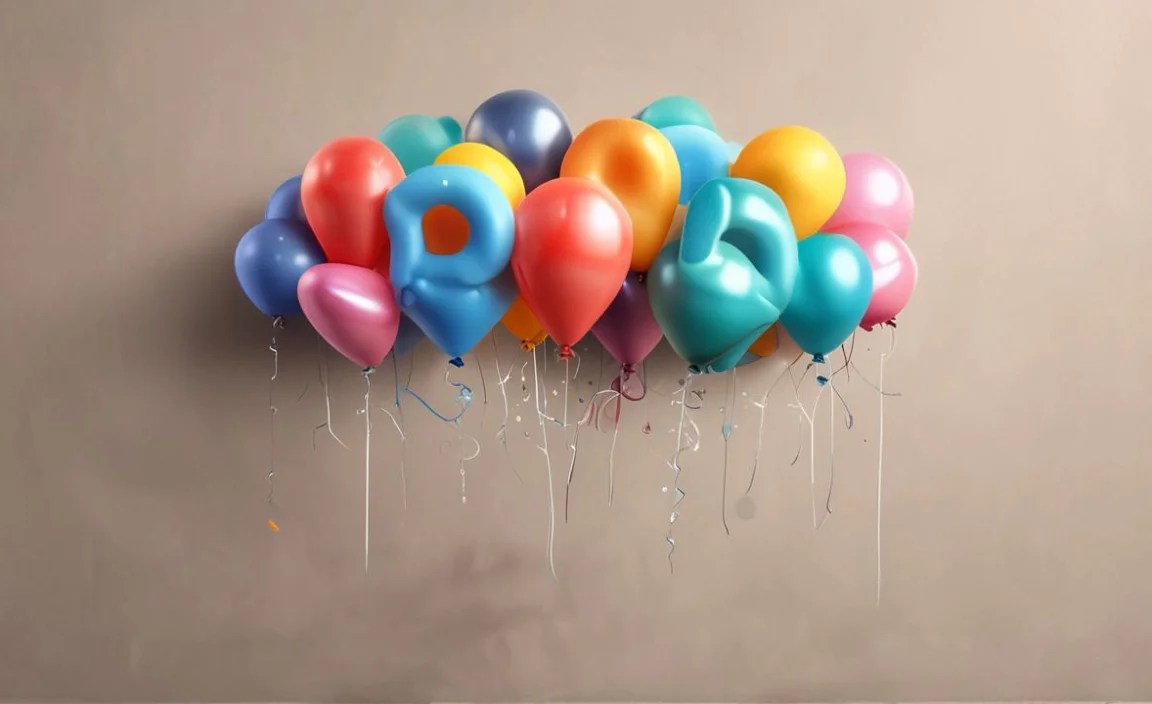
Balloon fonts are a type of typeface characterized by their playful, round, and often bubbly appearance. Typically, these fonts evoke a sense of fun and joy, making them perfect for flyers, banners, invitations, and any other printed materials requiring a sense of whimsy or creativity.
They often feature uppercase letters, giving them a bold presence while maintaining a cute font aesthetic. The design of balloon fonts is often inspired by illustration and vector graphics, making them adaptable to both digital and print formats, including SVG format, for scalability.
Popular Uses for Balloon Fonts
Balloon fonts are incredibly versatile, and can be used in a variety of design projects:
- Party Invitations & Celebrations: Whether you’re designing a party invitation or a banner for a celebration, balloon fonts bring an element of fun and excitement to your design. Their lively shapes and boldness make them perfect for events.
- Advertising: Balloon fonts are eye-catching, so they’re often used in advertising. They can easily grab attention in a magazine ad, digital banner, or website.
- Greeting Cards: For a personal touch in greeting cards, a balloon font can add elegance and playfulness, making your message stand out.
- Posters & Flyers: If you’re working on posters or flyers, balloon fonts help communicate a sense of energy, perfect for events, concerts, or promotions.
- Web Design: If you’re designing a website, a balloon font could be used for headings, titles, or key content that you want to stand out. As a web font, it ensures your message is clear and fun, no matter where it’s displayed.
Key Features of Balloon Fonts
- Playful Style: The most distinguishing feature of balloon fonts is their playful font style, which combines boldness with a fun, light-hearted feel.
- Whimsical Appeal: Whether you’re designing for kids or just want to add an element of whimsy to your project, balloon fonts are the perfect fit.
- Unique Letterforms: Balloon fonts tend to feature large, rounded letters that mimic the shape of inflated balloons. This gives them a distinct, recognizable style.
- Creative Typography: As a designer, you can play with various balloon font styles to bring your typography to life, adding creativity and detail to any design project.
Top 7 Balloon Fonts to Elevate Your Designs
When selecting the right balloon font for your project, it’s essential to choose one that matches your creative vision. Here are seven of the top balloon fonts along with their font families, styles, designers, and pairing options:
JI Solid Balloon Caps
- Family: Balloon
- Styles: Solid
- Designer: Jeri Ingalls
- Pairing Options: Works well with more refined sans-serif fonts like Arial or Helvetica for a balanced look.
XOXO Type Ext Bd
- Family: XOXO
- Styles: Extended Bold
- Designer: Billy Argel Fonts
- Pairing Options: Combine with a serif font like Georgia to make the text stand out and remain readable.
Atop
- Family: Atop
- Styles: Regular
- Designer: GraphicSauce
- Pairing Options: Best paired with a clean sans-serif like Open Sans to provide contrast.
PartyBoy
- Family: PartyBoy
- Styles: Regular
- Designer: Billy Argel Fonts
- Pairing Options: Combine with modern fonts like Poppins to bring a sleek yet playful tone.
AlphaBalloons2
- Family: AlphaBalloons
- Styles: Regular
- Designer: Beeline
- Pairing Options: Pairs well with minimalist fonts like Montserrat for a fun yet professional look.
Helium Heaven
- Family: Helium
- Styles: Regular
- Designer: Beeline
- Pairing Options: Best paired with traditional serif fonts like Times New Roman for contrast and clarity.
Kingthings Bloone!
- Family: Kingthings
- Styles: Regular
- Designer: Kingthings
- Pairing Options: Works well with creative, handwritten-style fonts for a more artistic look.
Why Choose Balloon Fonts for Your Design Project?
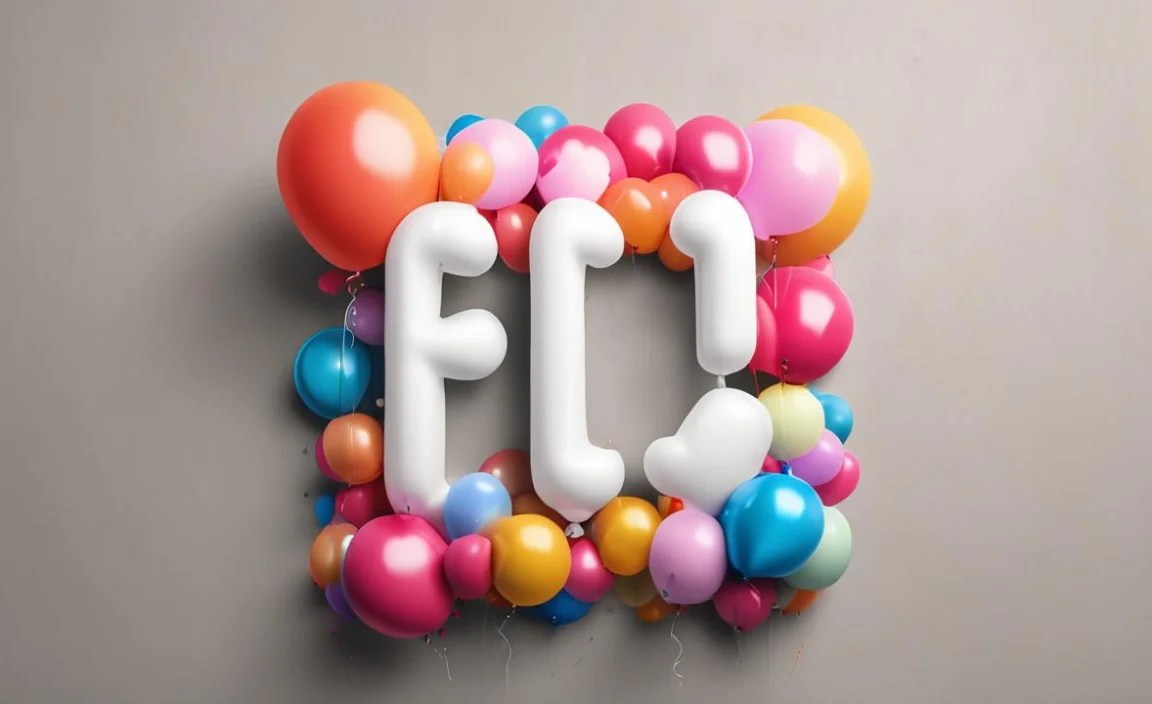
- Flexibility: Balloon fonts are highly versatile, making them suitable for various projects, from commercial use to personal celebrations.
- Attention-Grabbing: Their bold and playful style ensures your message stands out, whether on a banner, flyer, or website.
- Adaptability: You can use balloon fonts for everything from product packaging to posters, and their ability to work well in uppercase letters makes them perfect for titles and headers.